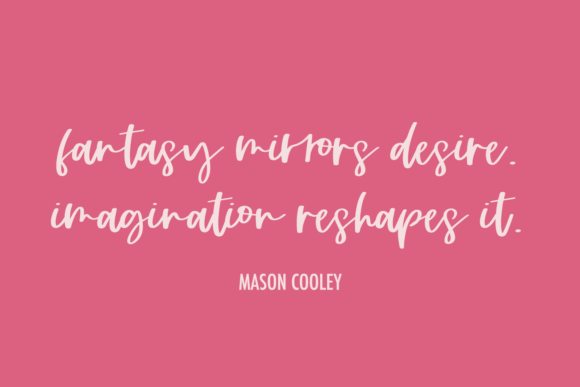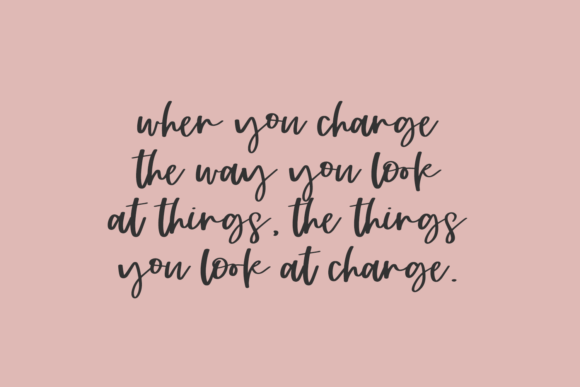
Looking Glass Script Font
db-ku.com - Script & Handwritten -- Looking Glass Script is a handwritten font with a few ligatures. Looking Glass has thicker lines, reminiscent of a marker or sharpie, and has a slight feminine bounce.